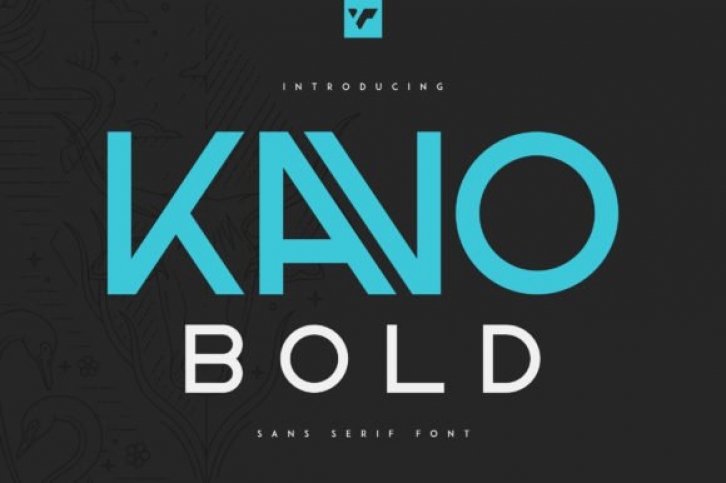
Kavo Bold is a thick lettered and modern sans serif font. Due to its simple nature, it will be incredibly versatile, fitting a wide range of creations.